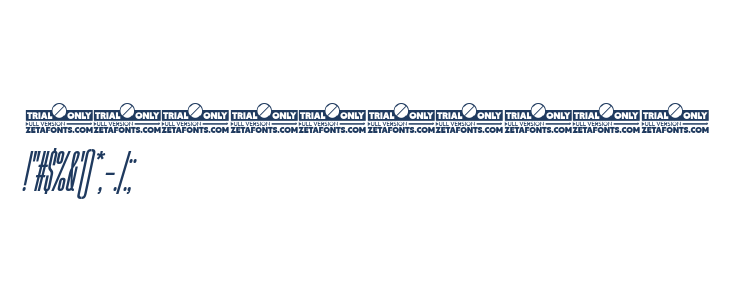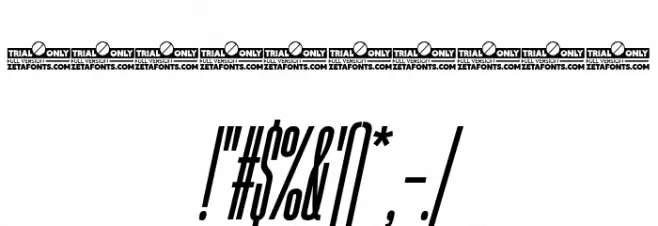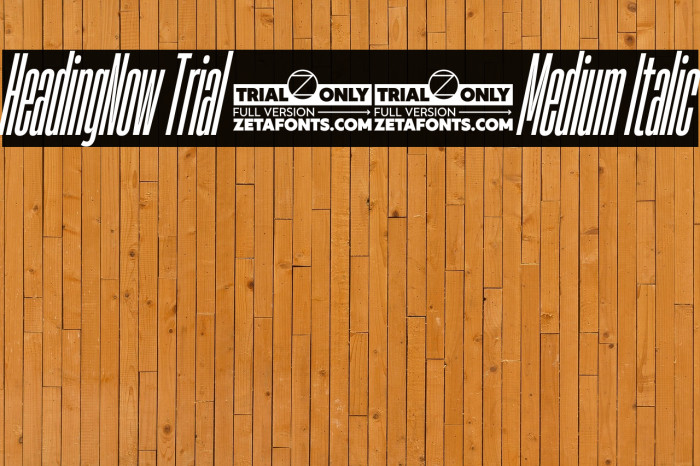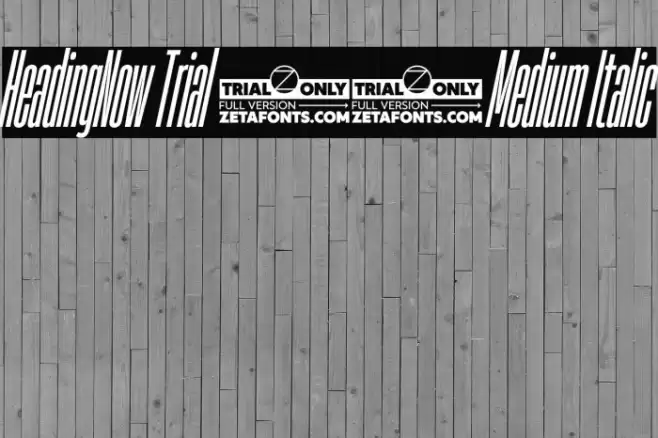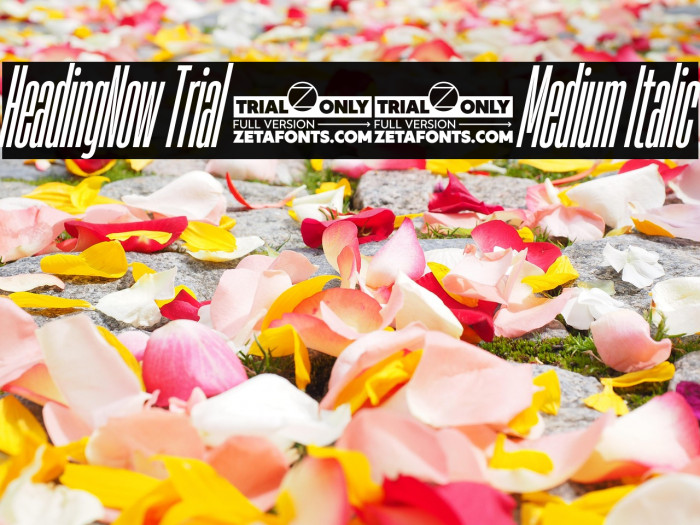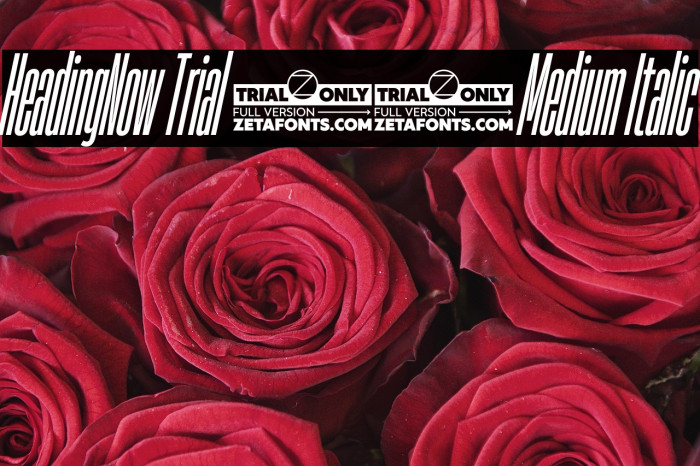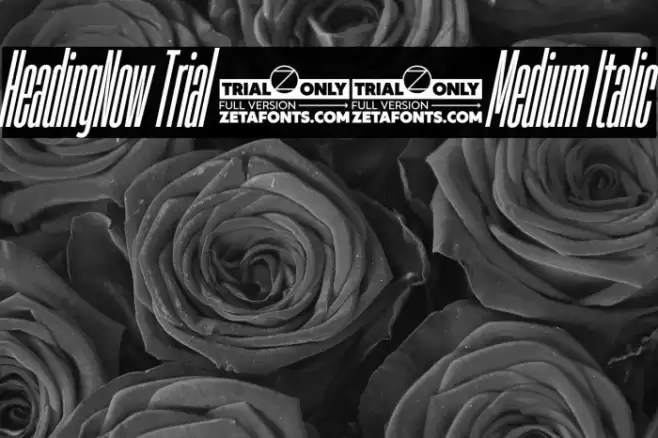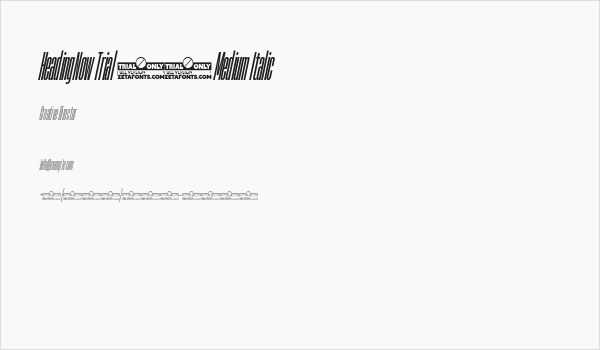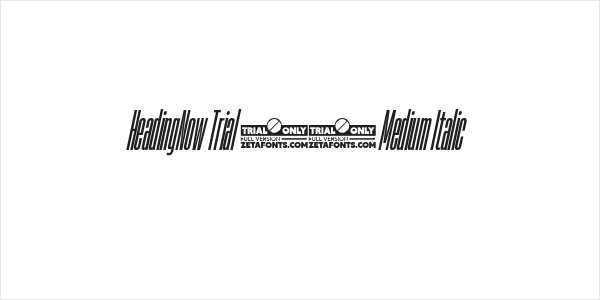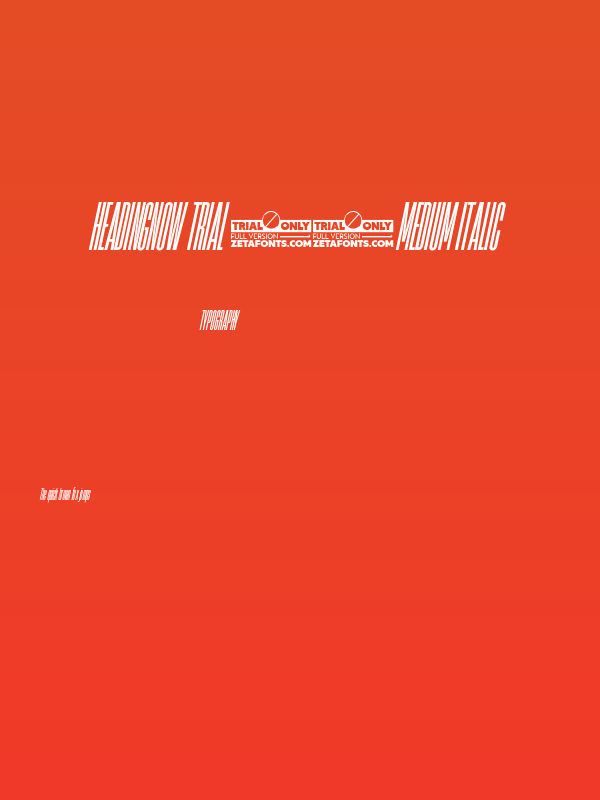
HeadingNow Trial 05 Medium Italic Font
HeadingNow Trial 05 Medium Italic Description
This font exhibits a sleek and modern design with a strong italic slant, giving it a dynamic and forward-moving appearance. The characters are tall and narrow, contributing to a condensed look that maximizes vertical space. The strokes are consistent in thickness, providing a uniform and cohesive aesthetic. The uppercase and lowercase letters maintain a harmonious balance, while the numerals and special characters integrate seamlessly into the overall style. This font's sharp angles and clean lines make it suitable for contemporary design projects.
| Use Case | Headlines, Logos, Advertising |
| Proposed Projects | Ideal for use in branding, editorial design, advertising, and digital media where a modern and dynamic look is desired. |